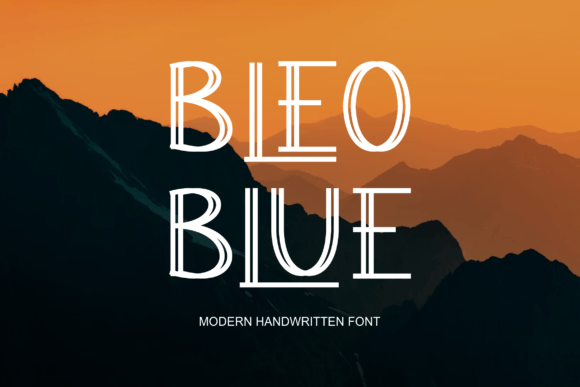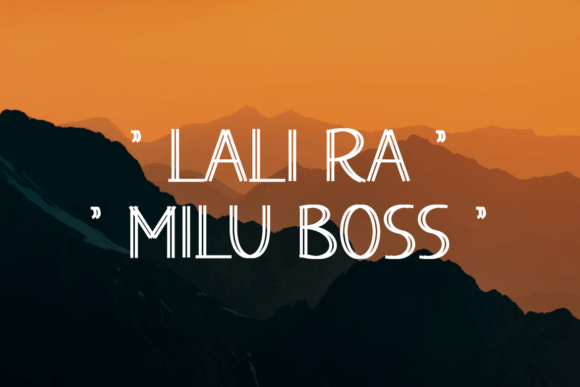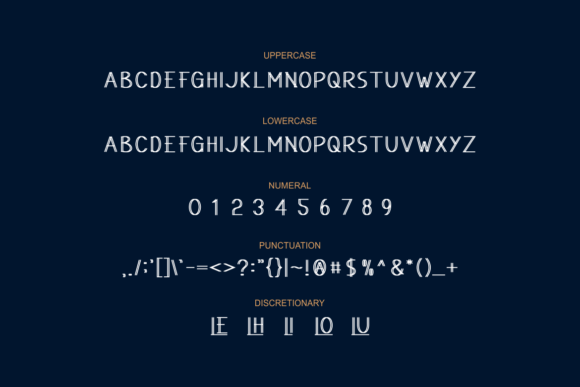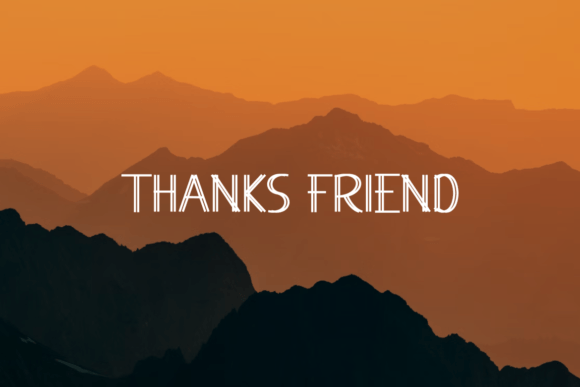
About Bleoblue Font
Bleoblue feels playfully nostalgic and delivers an incredible vintage
aesthetic. Use this slab serif font to add that special touch to any design
idea you can think of!